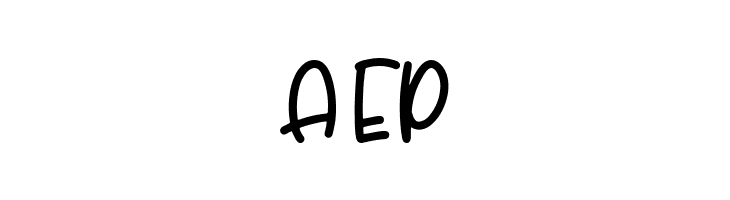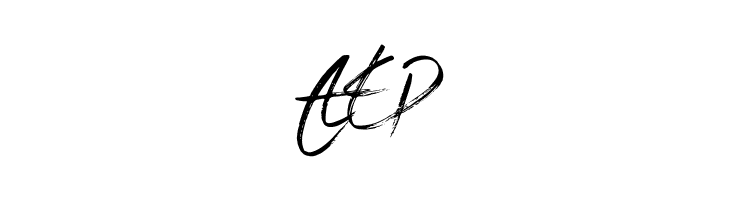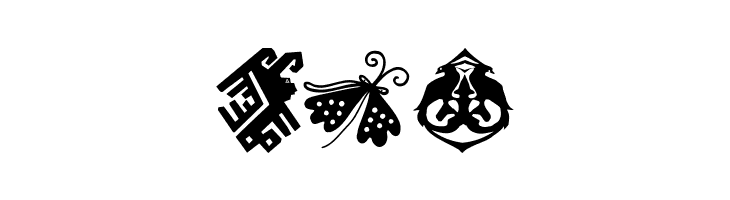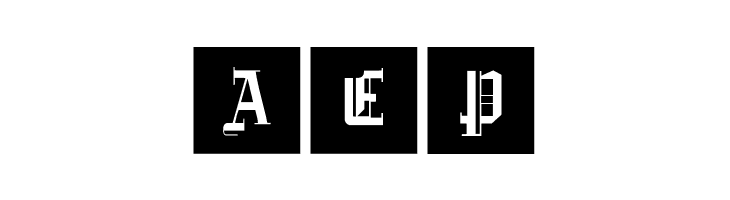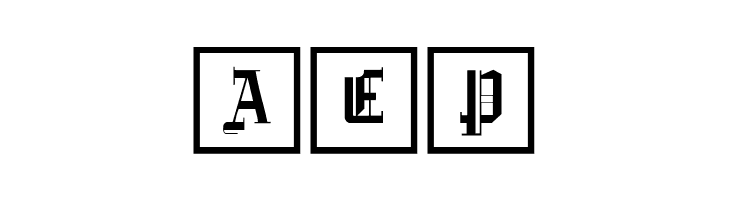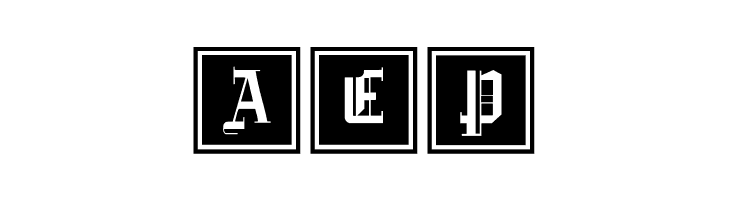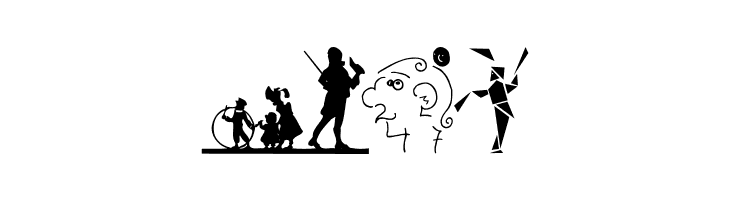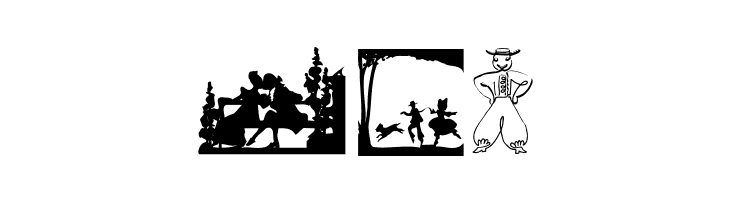
• GotikaButtonsDrei
A bold, Gothic-style font with characters enclosed in geometric shapes.
• GotikaButtonsOne
A bold, gothic-inspired font with geometric enclosures for a modern, decorative look.
• GotikaButtonsTwo
A bold, Gothic-inspired decorative font with unique encased letters.
• Granady
A dynamic, brush-style font with expressive, bold strokes.
• GrandfathersDesigns
Whimsical pictorial font with vintage silhouette illustrations.
• GrandfathersDesignsTwo
Whimsical pictorial font with silhouette illustrations for each character.
• Granite Rock St
A bold, geometric font with a cracked stone pattern, offering a modern and edgy look.
• GraphicAnimals
A pictorial font featuring diverse animal and insect illustrations as glyphs.
• Grateful Monday
A playful, bold handwritten font with smooth, rounded strokes.
• GreatureDemo